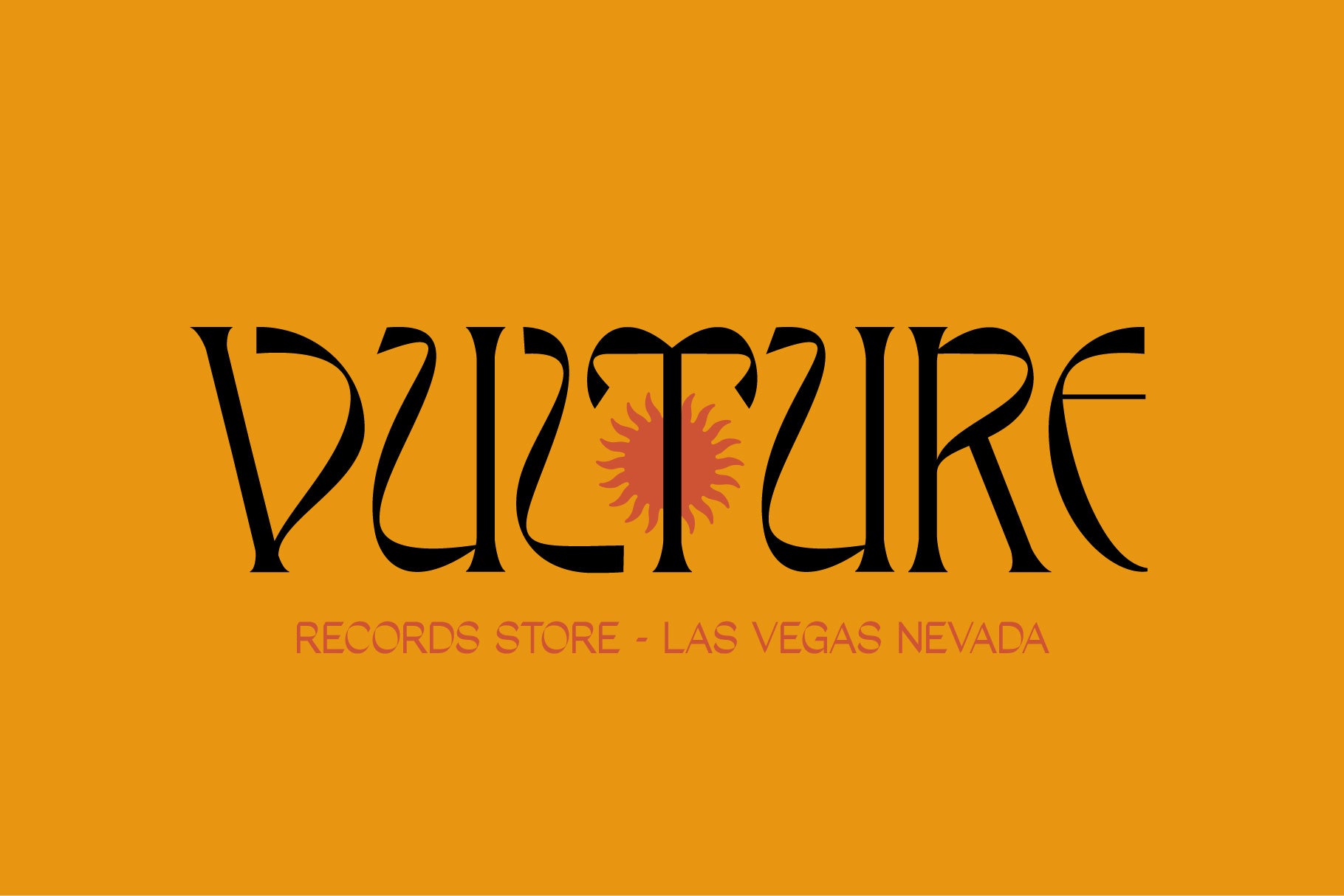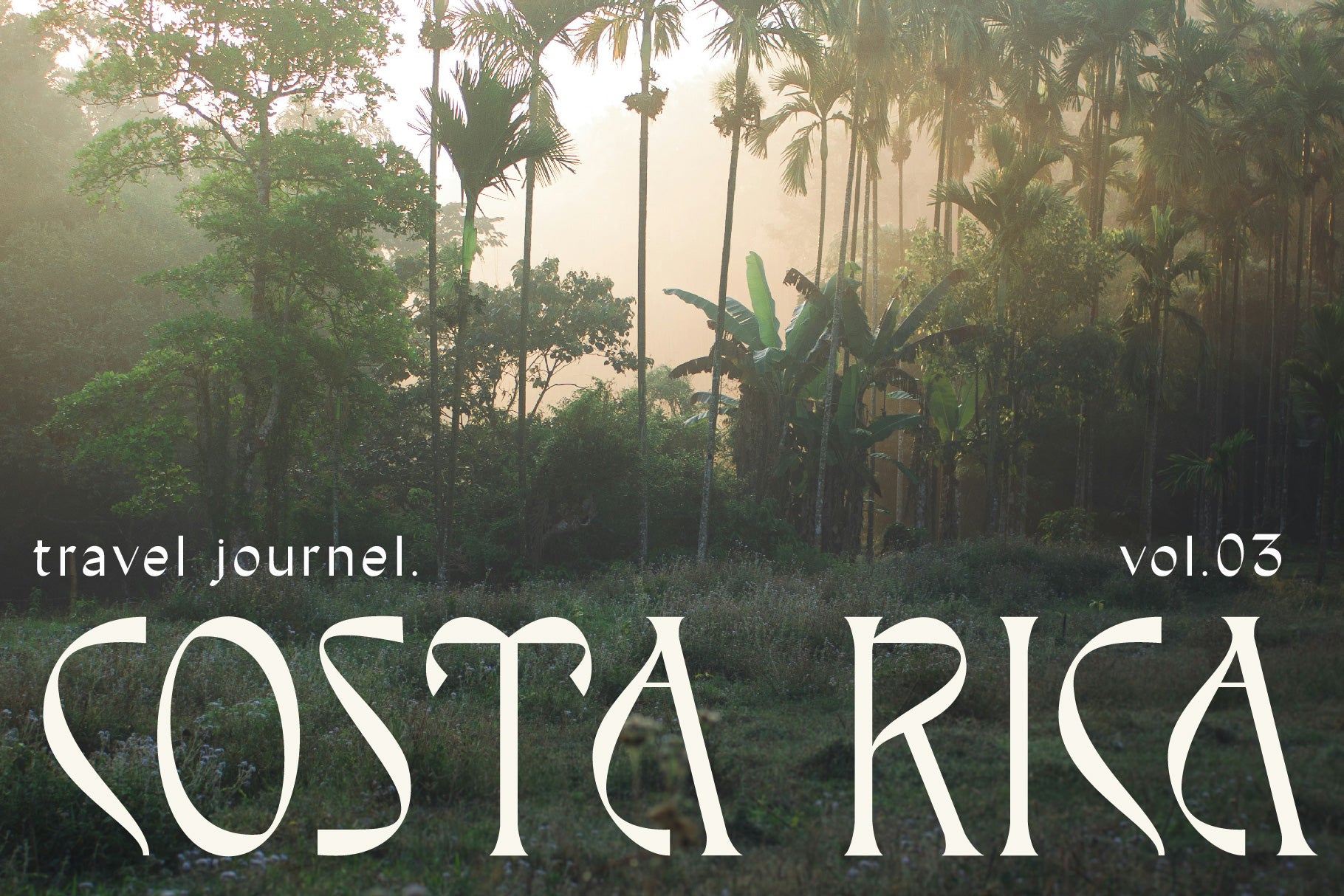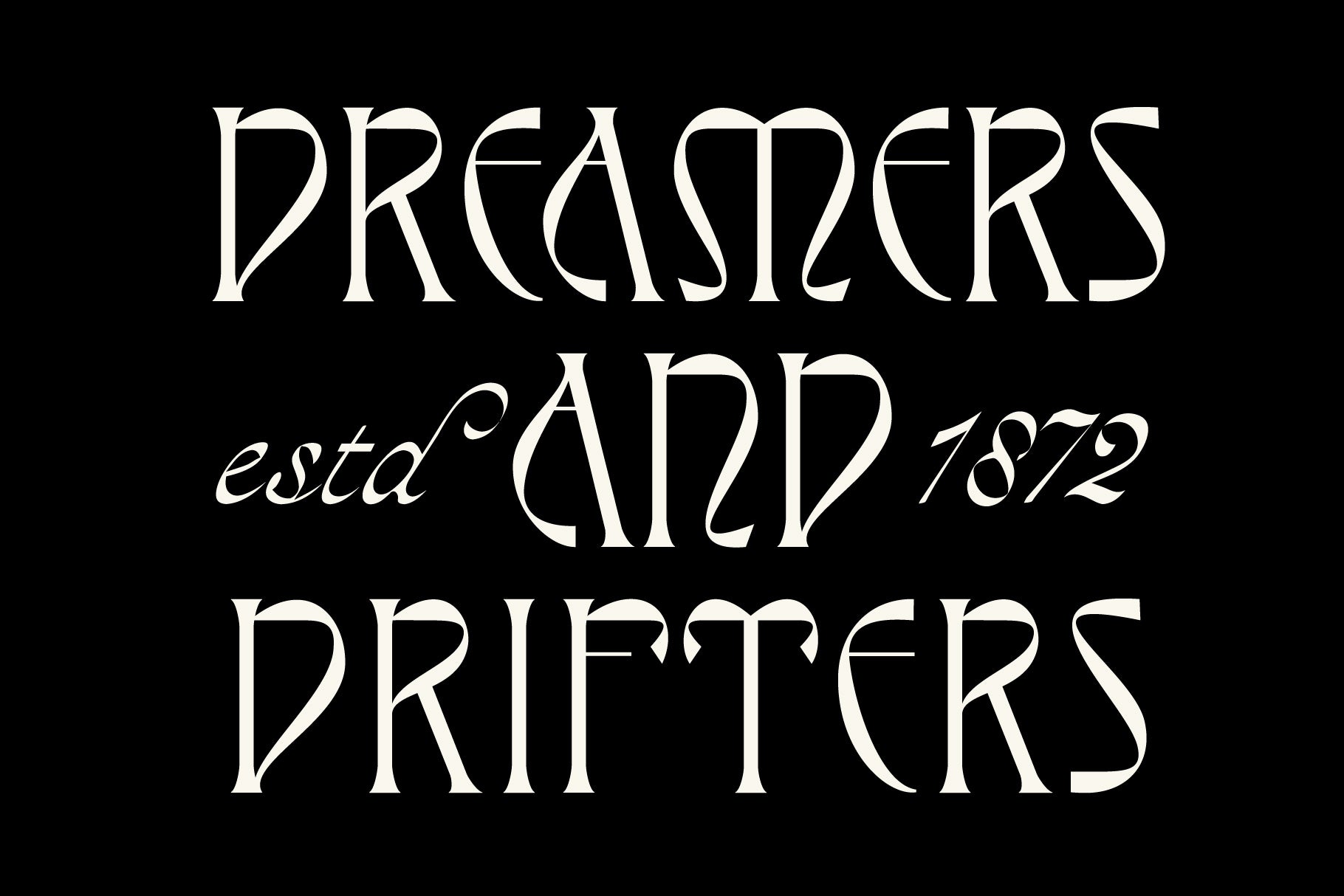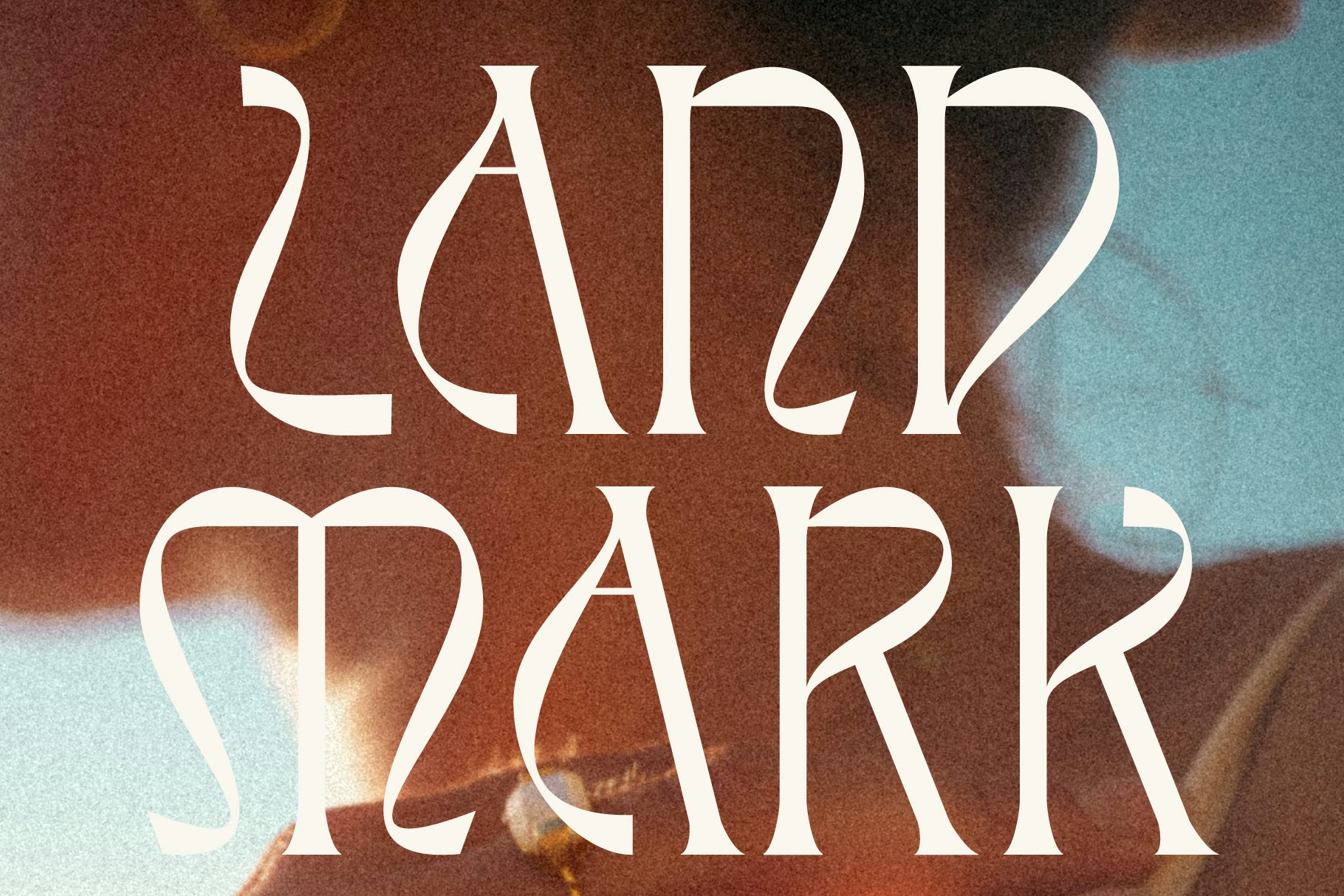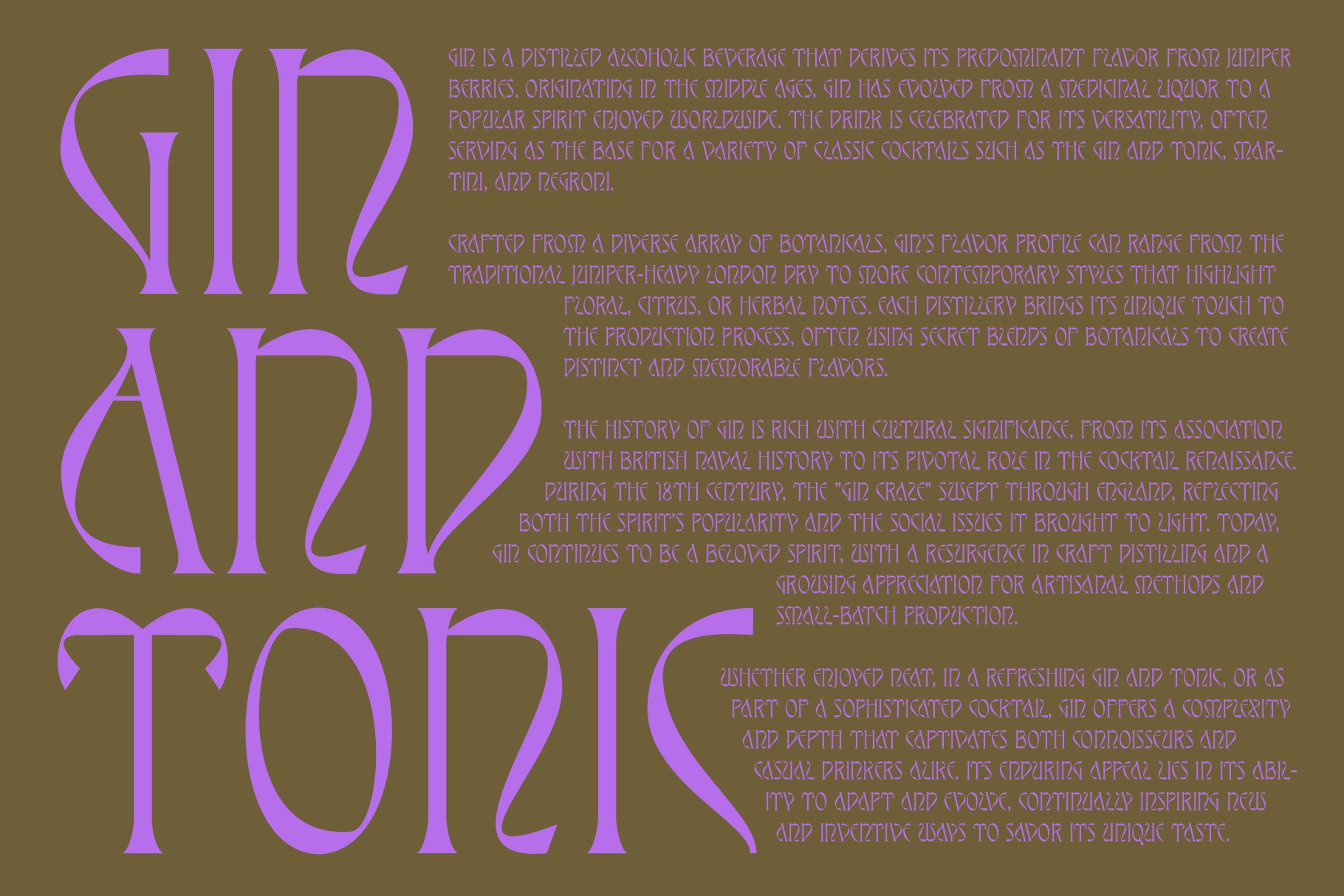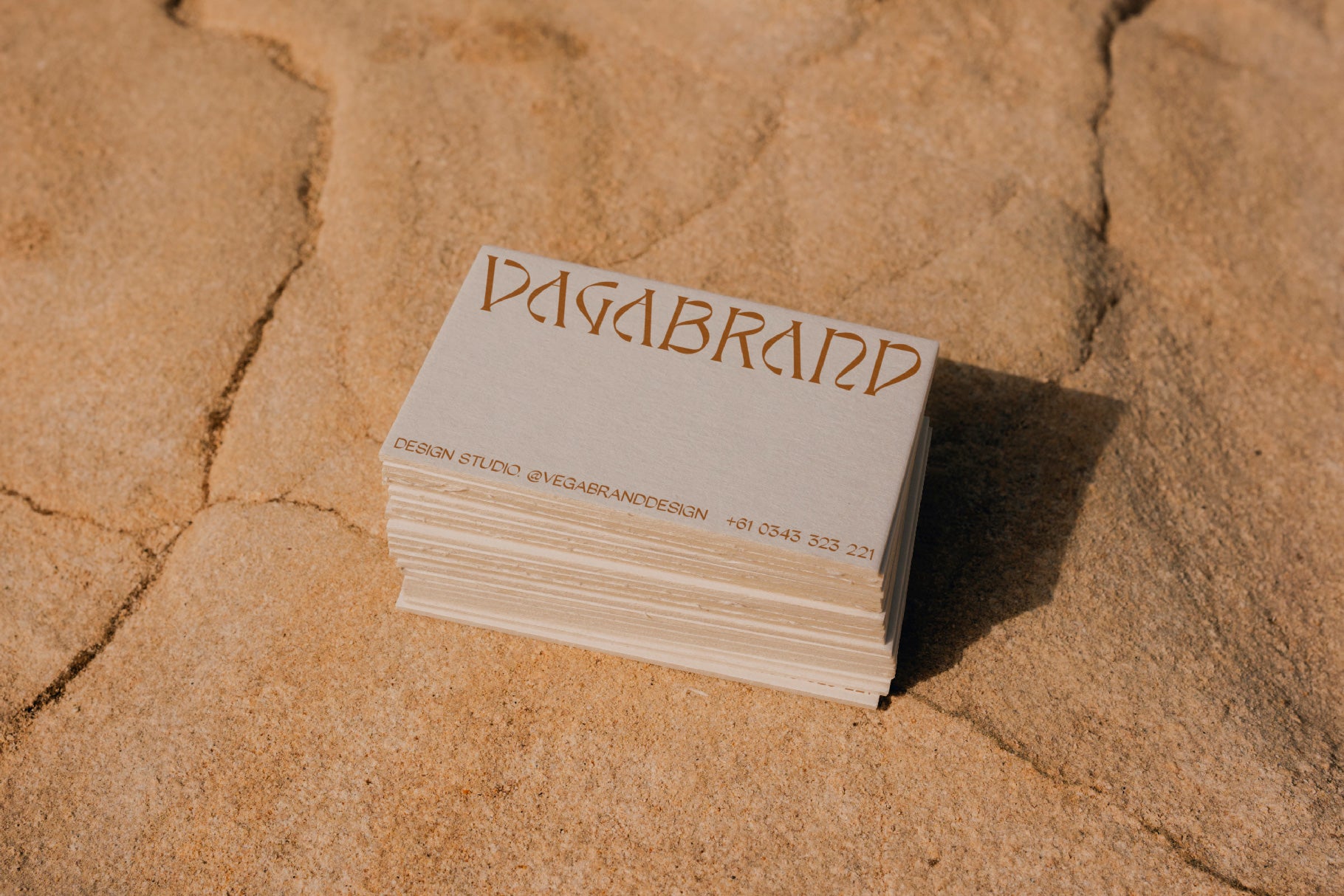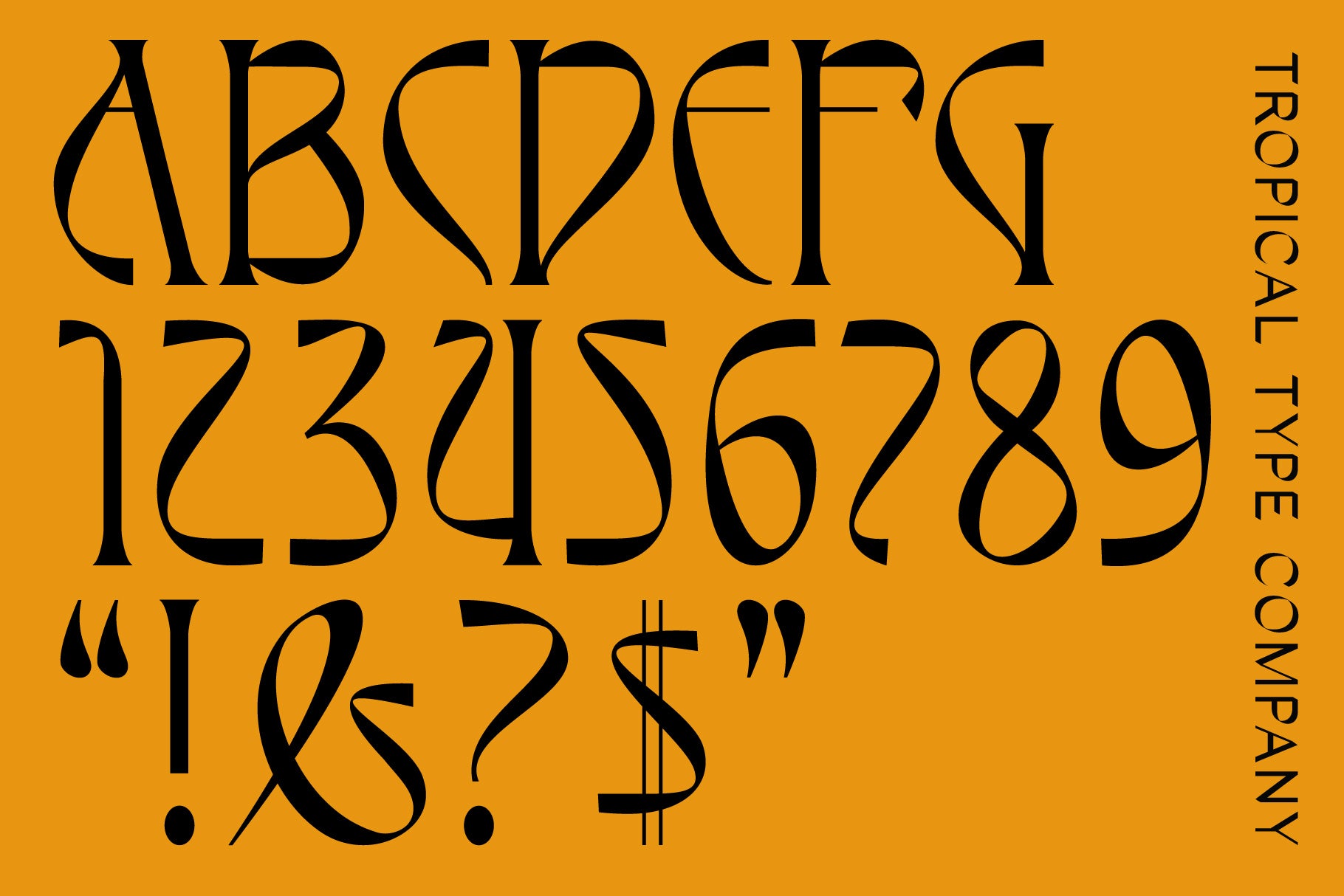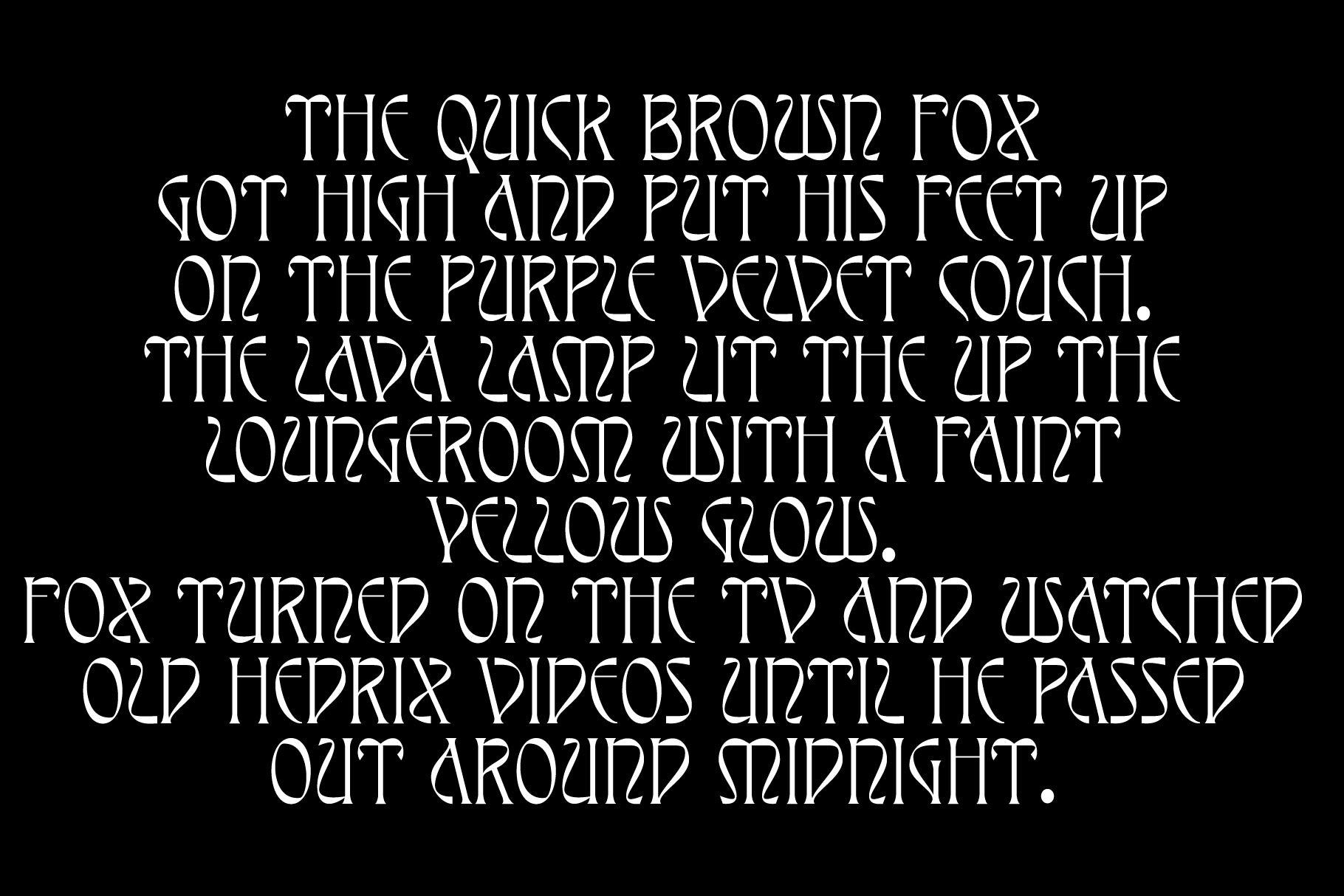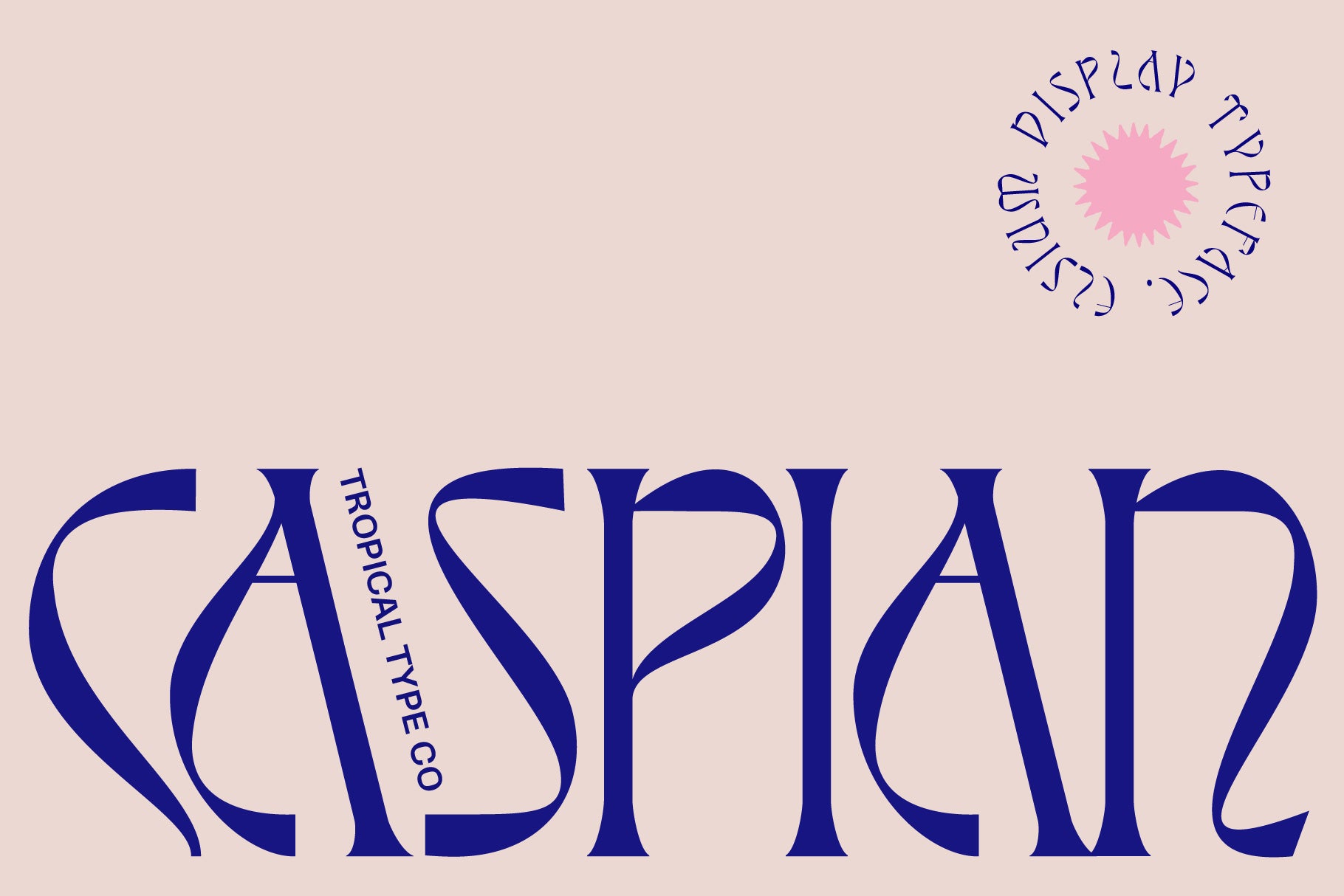
Elysium Display Font
Elysium is a modern display caps typeface. The combination of bold, sweeping curves with sharp, angular details contrasts futurism with hints of nostalgia.
UPPERCASE, UPPERCASE ALTERNATES, LOWERCASE, LOWERCASE ALTERNATES.
NUMBERS, NUMBER ALTERNATES.
Non English glyphs included:
Ą Á  À Ä Å Ã Æ Ć Ç Ę É Ê È Ë Í Î Ì Ï Ł Ń Ñ Ó Ô Ò Ö Õ Ø Œ Ś Š Ú Û Ù Ü Ý Ÿ Ź Ż